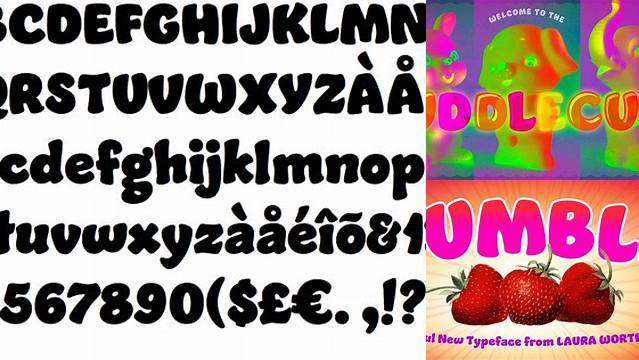
Jumble Font: Unveiling the Charm and Versatility
Alright guys, let's dive right into the awesome world of fonts, specifically the Jumble font created by the super talented Laura Worthington. This font is a real gem, and if you're looking for a way to add some serious personality to your designs, you've come to the right place. We're going to explore everything about the Jumble font, from its unique characteristics to where you can snag a free download. Seriously, this font is like a visual hug – it’s friendly, playful, and just oozes creativity. The Jumble font is not your run-of-the-mill typeface; it’s a celebration of individuality. Each letter has its own quirks, its own unique shape, making every word you type feel handcrafted and special. Think about the projects you're working on – are you designing a whimsical children's book, creating eye-catching social media graphics, or maybe even spicing up your personal blog? The Jumble font can seamlessly fit into all of these scenarios. It's the kind of font that makes people stop and take notice, which is exactly what you want, right? One of the coolest things about the Jumble font is its organic feel. It's like the letters are dancing on the page. And let's be honest, in a world of sleek, often sterile fonts, something that breathes life and personality into your work is a total game-changer. The design of this font is really special. It's a script font, but it’s not overly formal or stuffy. It’s got a handwritten quality, which gives it a personal touch that just can't be replicated by more generic fonts. This makes the Jumble font perfect for projects where you want to convey warmth, approachability, and a sense of fun. Whether you're a seasoned designer or just starting out, having the Jumble font in your toolkit is like having a secret weapon. It's incredibly versatile, making it easy to use in a variety of design applications. Plus, it can be easily paired with other fonts to create a dynamic and visually appealing design. You can use it in so many projects; personal, business, and other creative endeavors. It adds a touch of personality and flair to any project, and it’s definitely a font that will make your work stand out from the crowd.
Laura Worthington's Jumble Font: Design and Aesthetics
Okay, let's get into the nitty-gritty of the Jumble font's design. Created by the brilliant Laura Worthington, this font is a testament to her exceptional talent and eye for detail. The design aesthetic of the Jumble font is all about embracing imperfections in a beautiful way. Think of the slightly uneven strokes, the subtle variations in letter sizes, and the overall impression of a handwritten note. It's this attention to detail that makes the Jumble font so appealing and authentic. The Jumble font features a flowing script, which means the letters are connected to each other in a natural way. This gives your text a sense of continuity and flow, making it easy on the eyes and enjoyable to read. The script style of the font also lends itself well to more artistic designs. You can use it to create beautiful logos, elegant invitations, or artistic social media posts. This font is not just a pretty face; it is designed with versatility in mind. It comes in a variety of weights and styles, giving you the flexibility to adjust the look and feel of your design based on your needs. You can use a lighter weight for headings, a bolder weight for emphasis, or a combination of both to create visual interest. The versatility of the Jumble font is one of its strongest assets, allowing you to create a cohesive and engaging design. Another great thing about the Jumble font is how well it pairs with other fonts. You can combine it with a more structured sans-serif font for a balanced look, or you can pair it with a different script font for a more playful and dynamic appearance. Experimenting with different font combinations is a fantastic way to discover your style and create designs that truly represent your brand. The Jumble font can be easily paired with other fonts to create a dynamic and visually appealing design. Its design offers a blend of elegance and playfulness, making it suitable for a wide range of projects. Whether you're designing a logo, creating invitations, or sprucing up social media graphics, the Jumble font will bring a touch of personality and flair to your project.
Exploring the Unique Characteristics of Jumble Font
When we talk about the Jumble font, we're really talking about a font with personality, a font that doesn't just sit there; it speaks. The font itself isn't perfect, and that is what makes it so perfect for a lot of projects. It’s this deliberate imperfection that gives it a unique, handcrafted feel. You can almost imagine the designer, Laura Worthington, carefully crafting each letter by hand. This adds a layer of authenticity and warmth that is hard to replicate with more digitally sterile fonts. The style of the Jumble font is a flowing script, which means the letters are connected, like they are hand-written. But unlike some overly formal script fonts, Jumble maintains a sense of playfulness and approachability. It’s like a friendly hello in every word. This makes it ideal for projects where you want to convey a sense of warmth, creativity, and approachability. And the flexibility of Jumble makes it a great choice for all kinds of projects. You're not limited to one specific style or design application. It adapts to your needs. Want to create a logo for a whimsical brand? Jumble is your friend. Need to design an elegant invitation? Jumble rises to the occasion. Need to add a touch of personality to your social media graphics? Jumble is there for you. The versatility of the font makes it a real asset for designers of all levels. One of the most distinctive characteristics of the Jumble font is its ability to evoke emotion. It has a way of drawing the viewer in, making them feel connected to the message. It’s not just about the words; it’s about the feeling they create. That connection can be used in marketing, personal projects, and creative endeavors. It can make a great impact on the people who see your work.